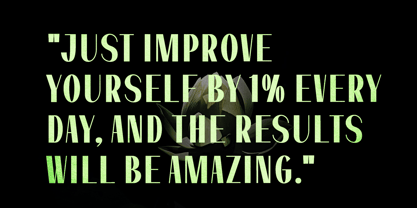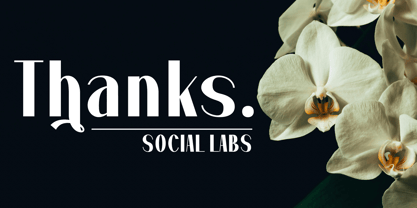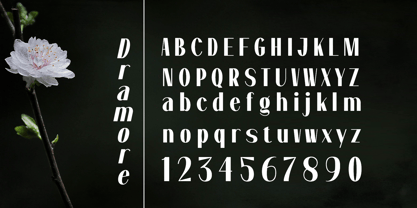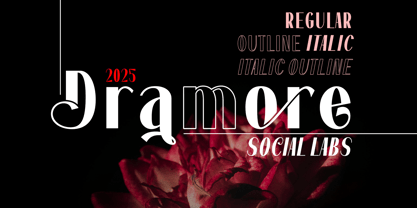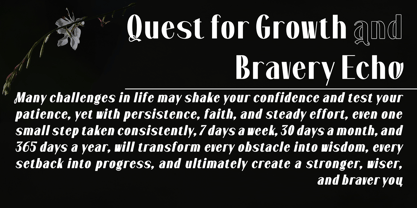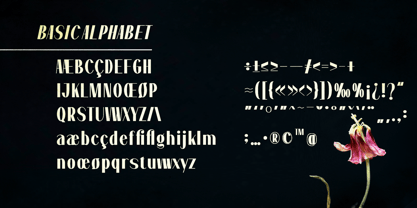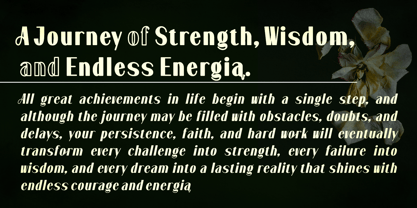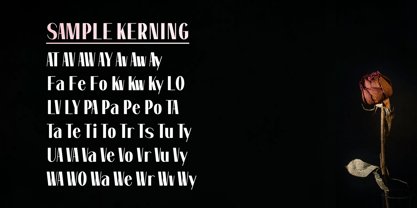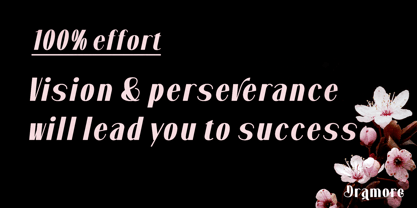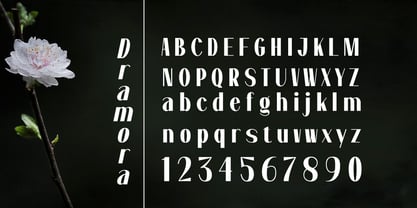
Dramora
by Social Labs
The Dramora Font Family was designed by Muhammad Naufal and published by Social Labs. Dramora contains 4 styles and family package options.
Dramora is a display typeface created to convey a strong, bold, and characterful impression. Inspired by a combination of modern, bold lines and classic ornamental elegance, Dramora features sharp thick-thin contrasts and soft flourishes, creating harmony between its bold and artistic sides. Its expressive nature makes it more than just a font-it’s a visual statement that captures attention at first glance. This font is ideal for headlines, creative brand logos, fashion posters, and editorials that demand an elegant yet dramatic touch. With its flexibility, Dramora seamlessly transitions between modern minimalist aesthetics and ornamental artistic designs, making it the perfect choice for designers seeking to create an unforgettable visual identity.
Designers: Muhammad Naufal
Publisher: Social Labs
Foundry: Social Labs